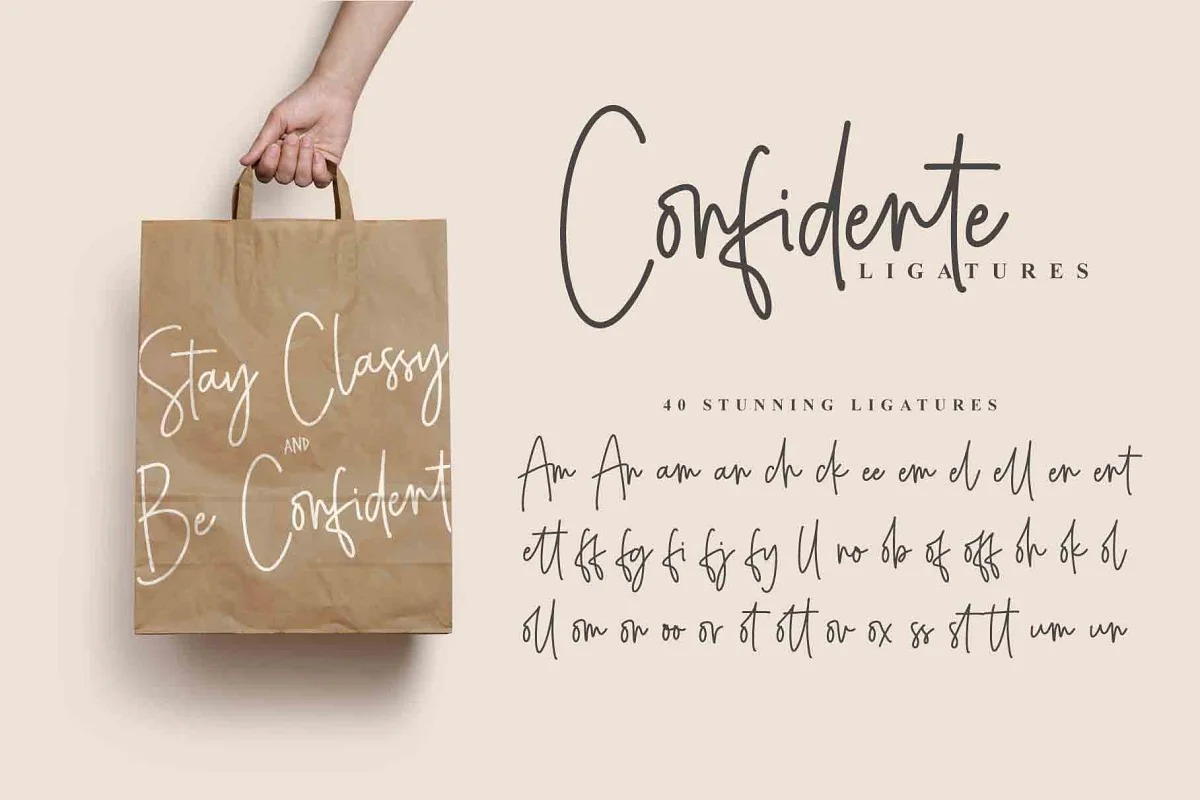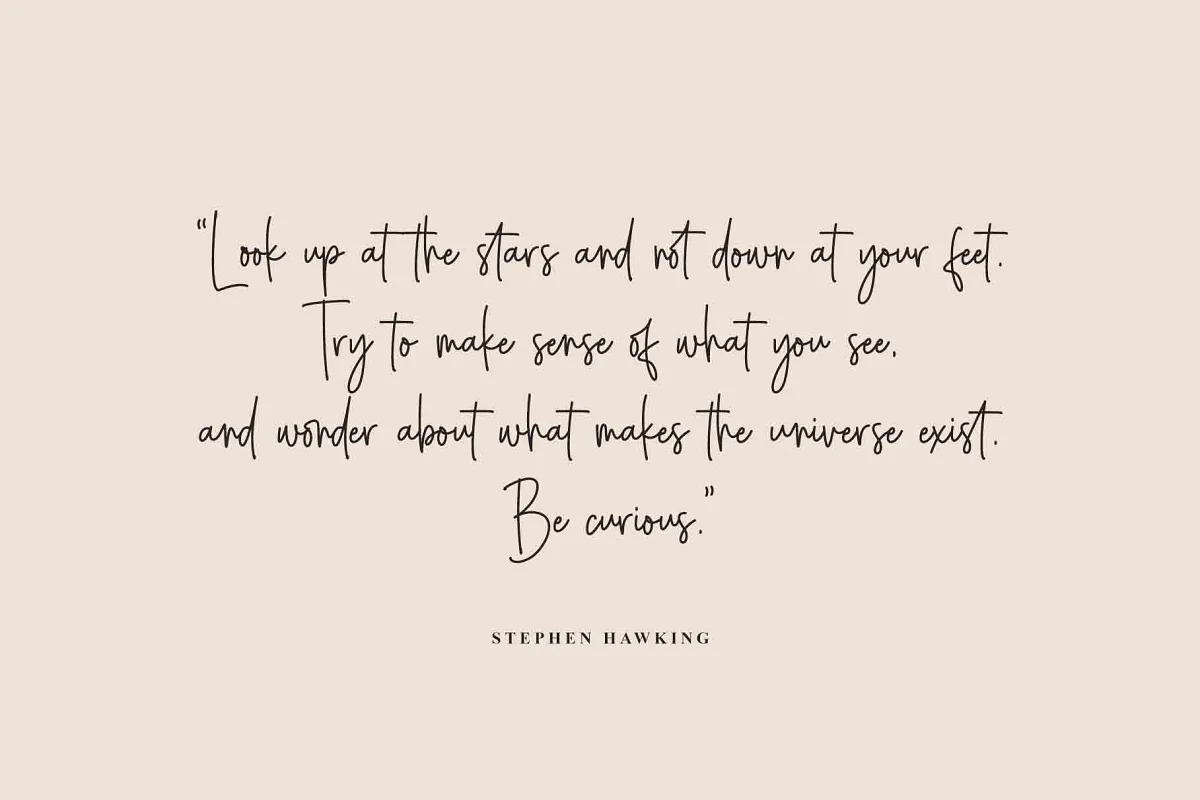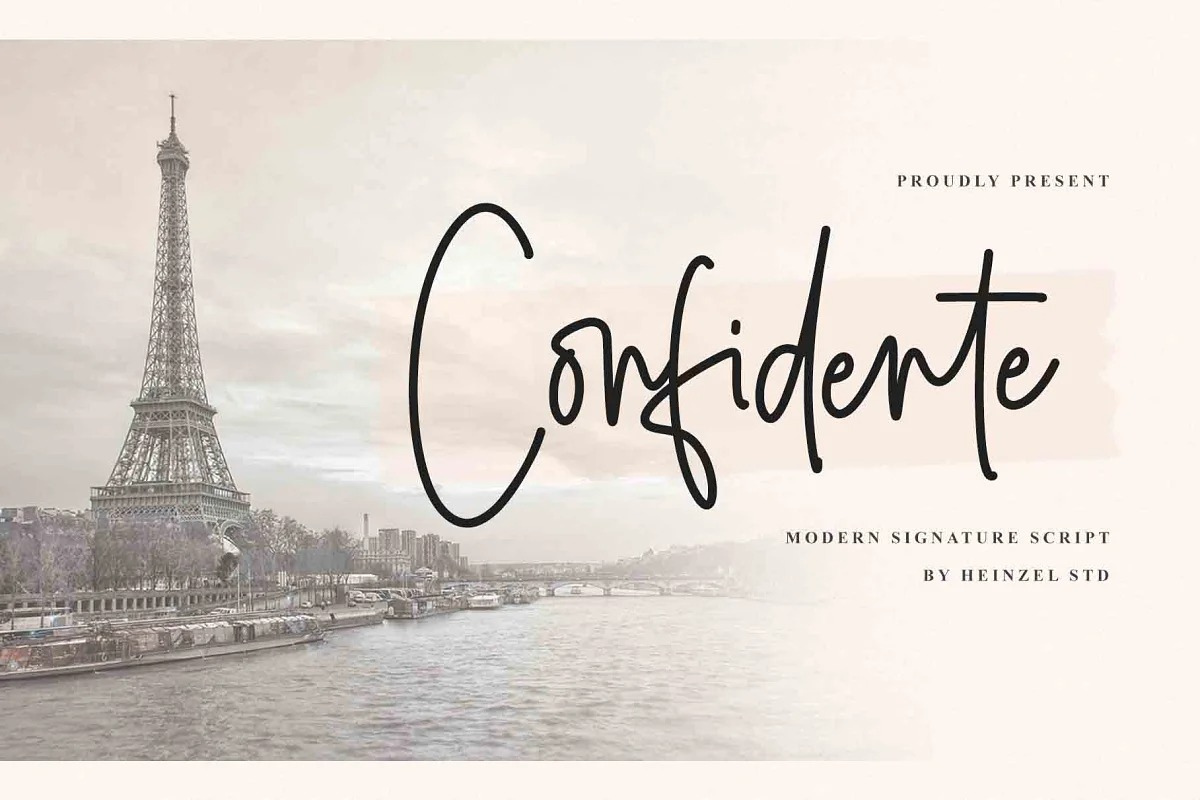
Confidente Font
Confidente Handwritten Font
It’s a refined, elegant, and fluid handwritten font that features playful, graceful characters that seem to be dancing along the baseline. Add this font to your most creative ideas, and notice how it makes them stand out! Confidente Signature is PUA encoded which means you can access all of the glyphs and ligatures with ease!